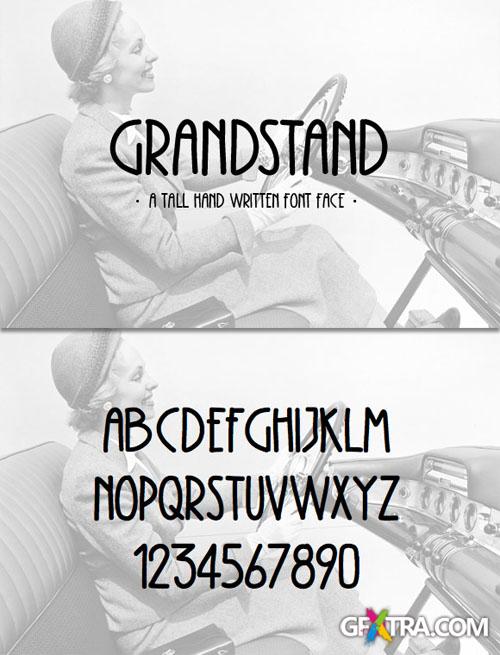
WeGraphics - Grandstand ? A Condensed Handwritten Font Face
Grandstand is a handwritten font face with tall condensed letters. It?s a great font for a title treatment with a slight vintage flare. The download includes web fonts and HTML/CSS for embedding.